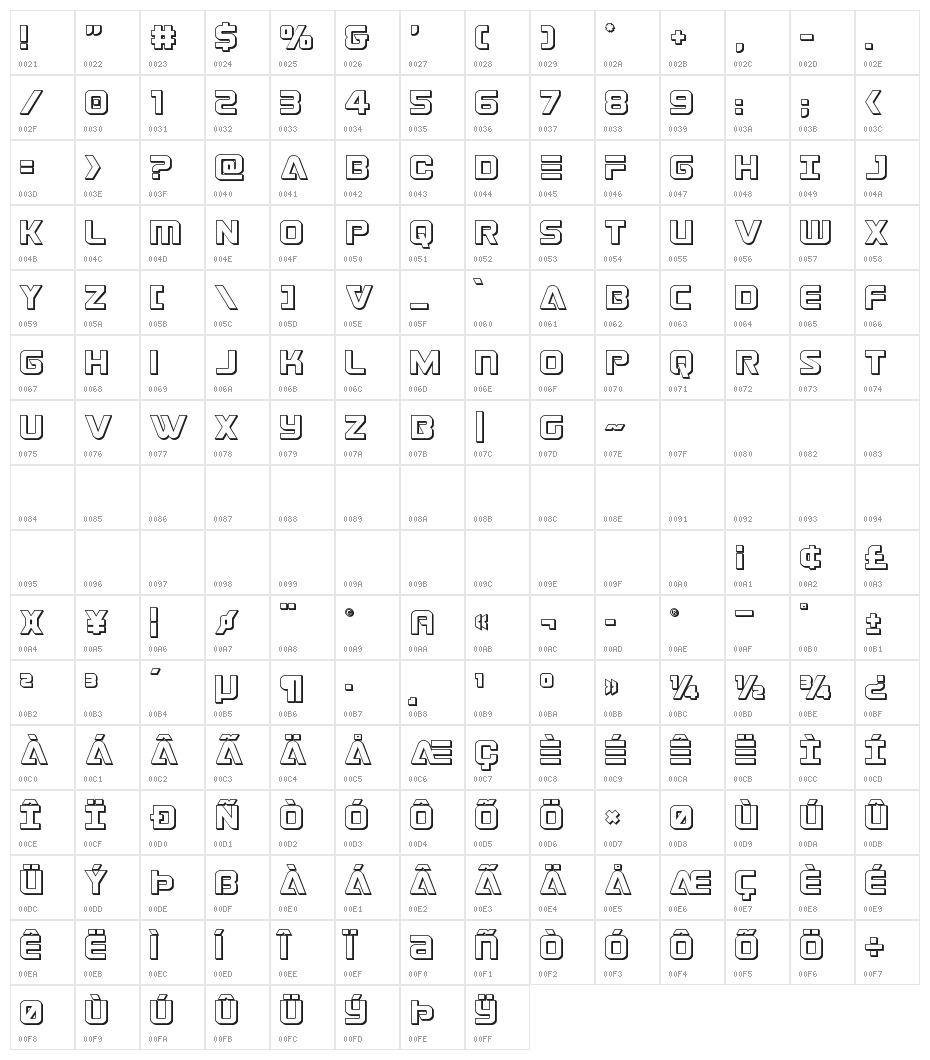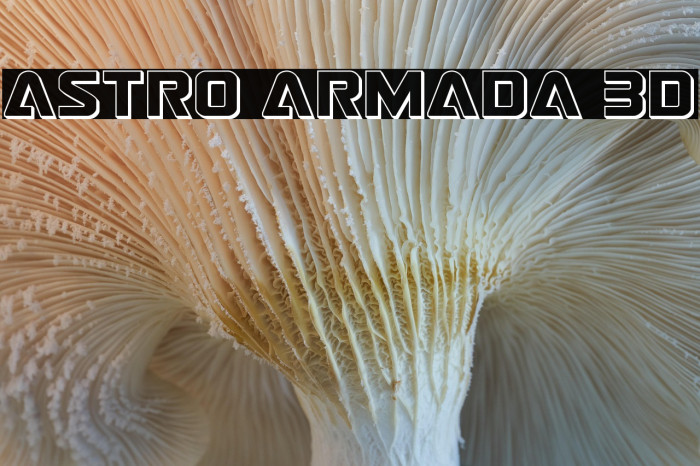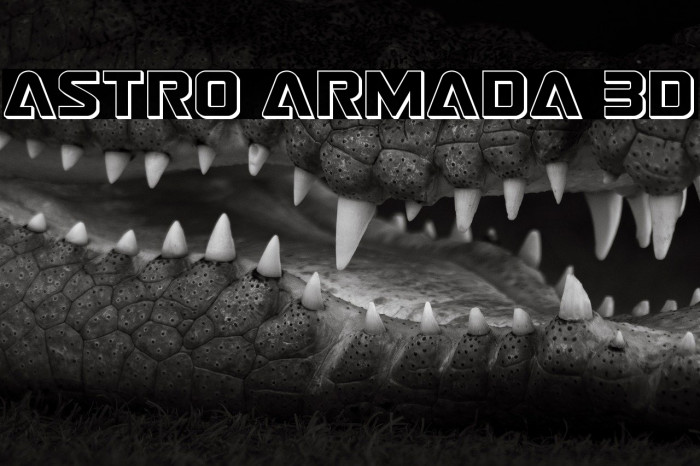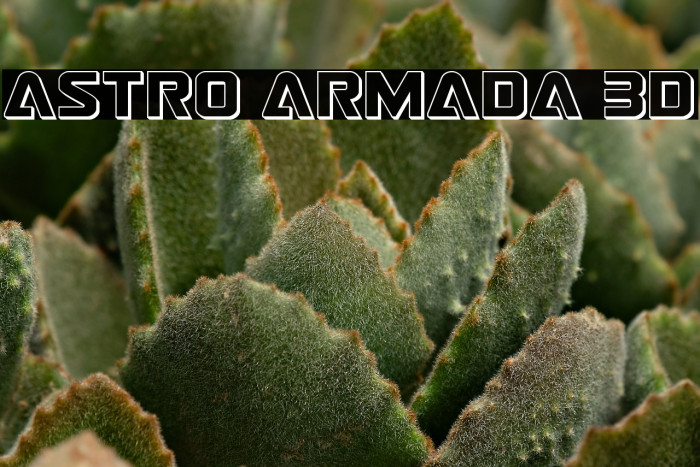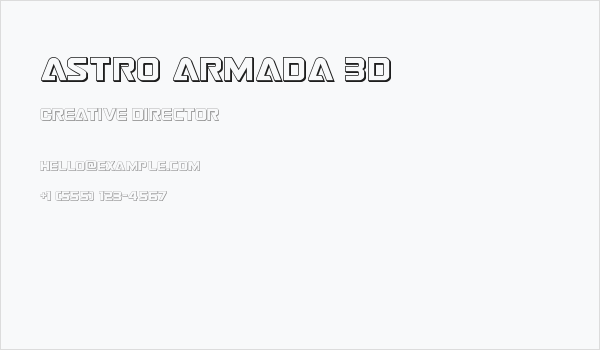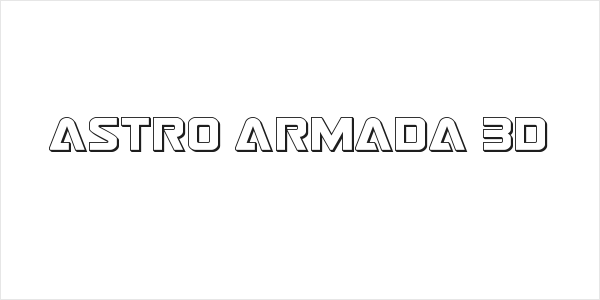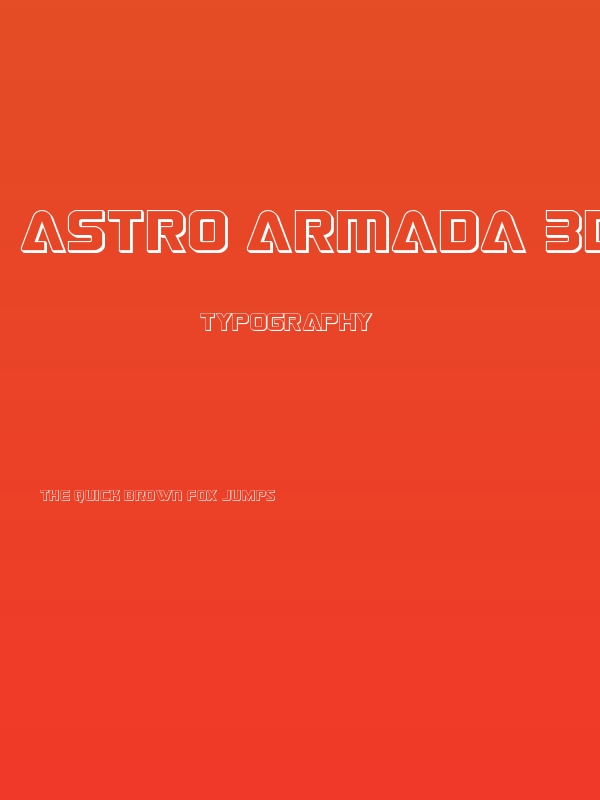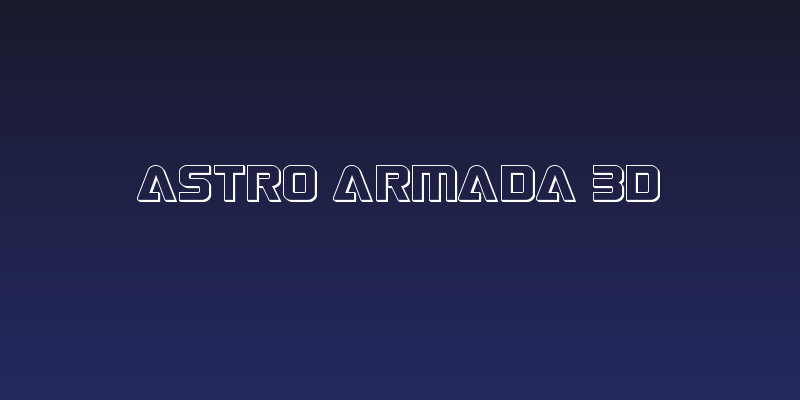
Astro Armada 3D Font
Astro Armada 3D Description
This font features a bold, futuristic design with a three-dimensional effect that gives it a distinct, modern appearance. The characters are outlined, creating a hollow look that enhances its visual impact. The geometric shapes and sharp angles contribute to its sci-fi aesthetic, making it ideal for projects that require a tech-savvy or space-themed vibe. The uppercase and lowercase letters maintain a consistent style, while the numbers and special characters are designed to complement the overall look. The font's structure is clean and precise, ensuring readability despite its decorative nature.
| Proposed Projects | Ideal for sci-fi movie posters, video game titles, tech branding, and futuristic event invitations. |